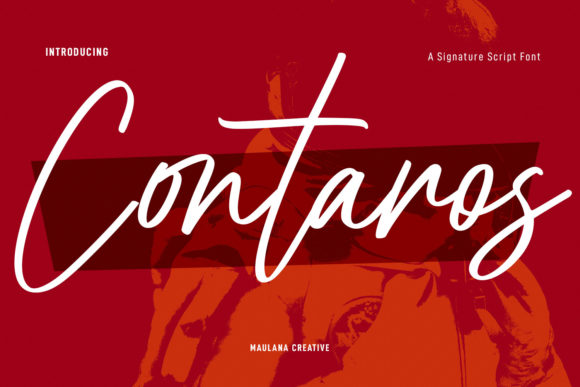
Why Contaros Script Is the Versatile Font Your Designs Need
There’s a moment in every project where the typography either clicks or clashes. You’ve nailed the imagery, the copy is tight, but the font feels stiff, generic, or just plain boring. That’s where a typeface like Contaros Script enters the conversation. It’s not just another script font; it’s a design tool built for adaptability. Think of it as that one reliable piece in your toolkit that works whether you’re crafting a logo for a new boutique, laying out a wedding invitation, or designing social media graphics for a client launch.
What sets Contaros Script apart is its relaxed yet polished character. The strokes flow with a natural, handwritten rhythm, but they’re refined enough to avoid looking messy or unprofessional. It strikes a balance between casual and elegant, making it a standout display font that doesn’t overwhelm. The letterforms have a soft, approachable feel with just enough flair to add personality without sacrificing clarity. This makes it incredibly useful for projects where you need warmth and authenticity alongside a clean, modern aesthetic.
Where Contaros Script Truly Shines
This font isn’t a one-trick pony. Its versatility means it can adapt to a wide range of applications, from digital to print and everything in between. In brand identity work, Contaros Script can serve as the primary typeface for a logo or as a complementary accent in a broader font pairing system. For example, pairing it with a clean sans serif font for body text creates a dynamic contrast that feels both professional and inviting. It’s a fantastic choice for brands in lifestyle, beauty, food, or creative industries where a personal touch matters.
In editorial design, think magazine headers, pull quotes, or chapter titles in a book. Contaros Script adds a layer of sophistication without feeling stuffy. For packaging design, it can elevate product labels, especially for artisanal goods, cosmetics, or gourmet items where a handwritten feel suggests craftsmanship and care. On the digital side, it works beautifully for website hero sections, email headers, or as a stylized accent in web design to draw attention to key messages.
Don’t overlook its power in social media graphics either. In a feed crowded with bold, aggressive typefaces, Contaros Script offers a refreshing alternative. It can make quotes, announcements, or promotional posts feel more personal and engaging. For small business owners and entrepreneurs, using a premium font like this can instantly elevate your visual presence, helping you compete with larger brands on a more polished level.
Practical Tips for Using Contaros Script Effectively
Choosing the right font is only half the battle; using it well is what makes the difference. When evaluating Contaros Script for a project, start by considering the tone you want to set. Its relaxed, adaptable nature suits warm, approachable, and creative themes. It might not be the best fit for highly technical, corporate, or minimalist projects where a stark serif font or geometric sans serif font would be more appropriate.
Always test font pairings early in your design process. Contaros Script pairs exceptionally well with neutral, geometric sans serifs that provide a clean counterpoint to its flowing lines. Try it with fonts like Montserrat, Poppins, or Open Sans for a balanced look. Avoid pairing it with other highly decorative or script fonts, as that can create visual clutter. Use Contaros Script for headlines, logos, or key phrases, and reserve your secondary font for longer blocks of text to maintain readability.
Pay attention to readability, especially at smaller sizes or on screens. While Contaros Script is designed for clarity, script fonts can sometimes become challenging to read in lengthy paragraphs or low-contrast color schemes. Use it sparingly for impact, not for body copy. Check the included styles and glyphs—many premium fonts come with alternates, ligatures, and swashes that can add even more creative flair to your designs. Experiment with these features to create unique letter combinations that stand out.
Finally, ensure you have the correct commercial license for your use case. If you’re using Contaros Script for client work, merchandise, or digital products, verify that the license covers those applications. Investing in a proper license not only supports the font creator but also protects you legally, which is a mark of professionalism that clients and audiences notice.
Making Your Designs Come Alive
The real value of a font like Contaros Script lies in its ability to make your creative ideas feel tangible and alive. It’s not about following trends; it’s about choosing a typeface that aligns with the story you’re trying to tell. Whether you’re a designer refining a brand’s visual language, a blogger creating engaging headers, or a crafter designing custom invitations, this font offers a reliable way to inject personality and professionalism into your work.
Think of typography as the voice of your design. Contaros Script speaks in a tone that’s confident yet approachable, creative yet consistent. It helps establish visual hierarchy, guiding the viewer’s eye to what matters most. In a world saturated with generic visuals, using a thoughtfully chosen script font can be the detail that makes your project memorable. It’s a small choice that can have a big impact on how your audience perceives your brand, engages with your content, and remembers your message.
So, if you’re looking for a creative font that adapts as fluidly as your ideas do, give Contaros Script a place in your design toolkit. Test it out, play with its features, and see how it transforms your next project from ordinary to extraordinary.